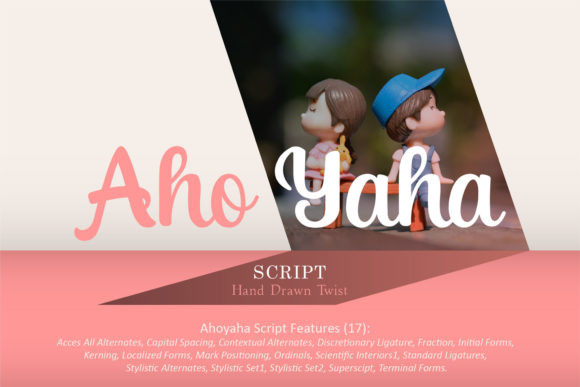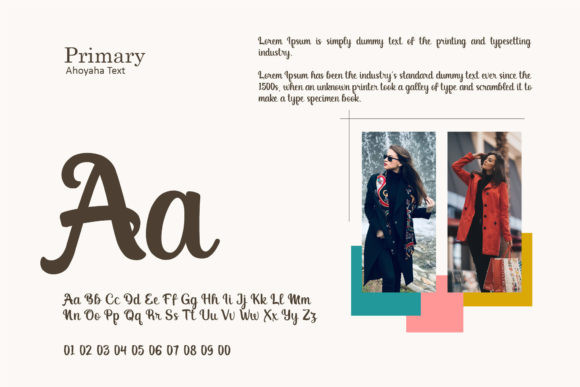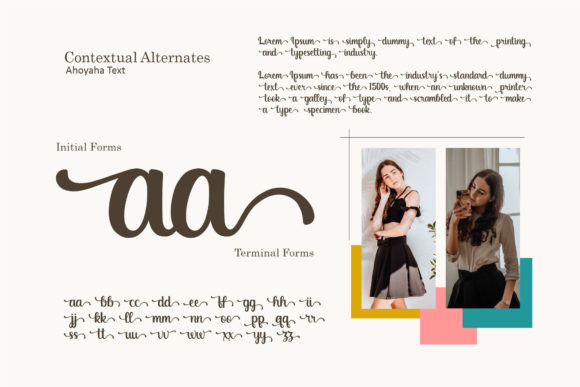
Aho Yaha Font
Aho Yaha is a sweet and flowing handwritten font. Its distinct and well rounded letters make this font a masterpiece. Fall in love with its incredibly versatile style and use it to create spectacular designs!